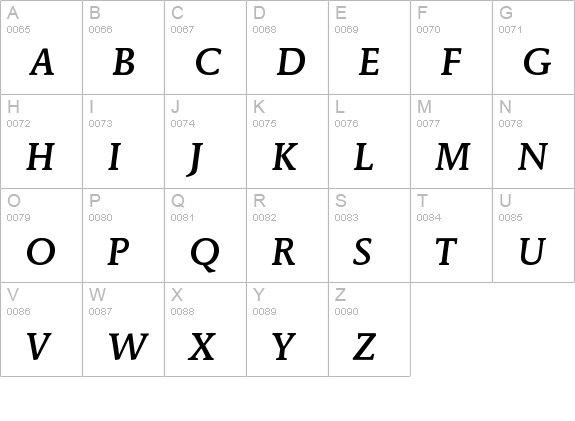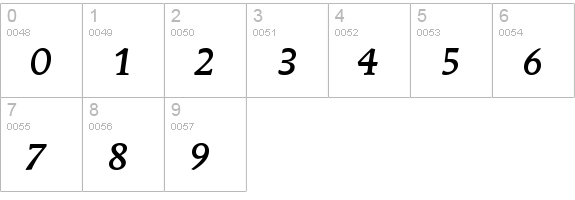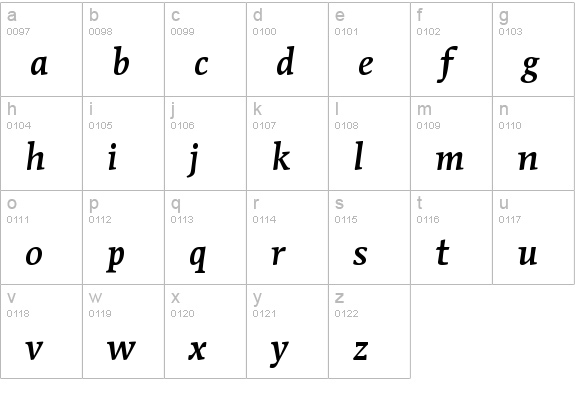
MendozaEF-MediumItalic is a sleek and sophisticated typeface that exudes elegance and modernity. Its medium weight and italic style make it ideal for adding a touch of sophistication to any design project. The flowing curves and subtle slant of the letters give this font a dynamic and graceful appearance. What sets MendozaEF-MediumItalic apart is that it is available for free download at FontsMarket.com. This means that you can easily access this high-quality font and use it in your projects without any cost. Whether you're designing a website, creating a logo, or crafting a print advertisement, MendozaEF-MediumItalic is a versatile and stylish font that will enhance your work and make it stand out. With its clean lines and contemporary feel, MendozaEF-MediumItalic is the perfect choice for designers looking to add a touch of sophistication to their projects. Download this font for free today and elevate your designs with its elegant and modern aesthetic.